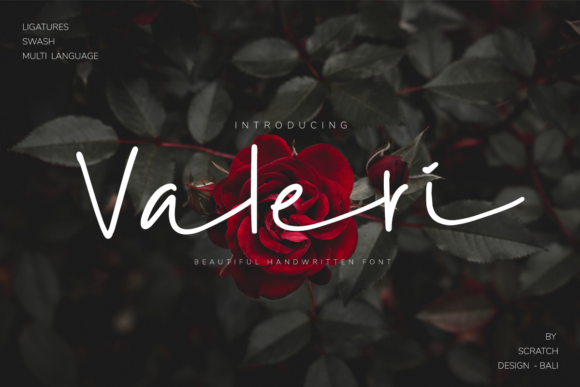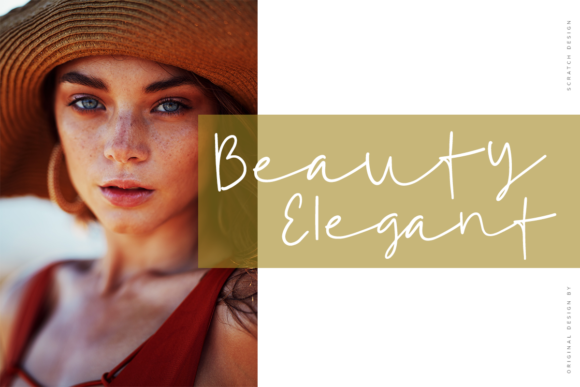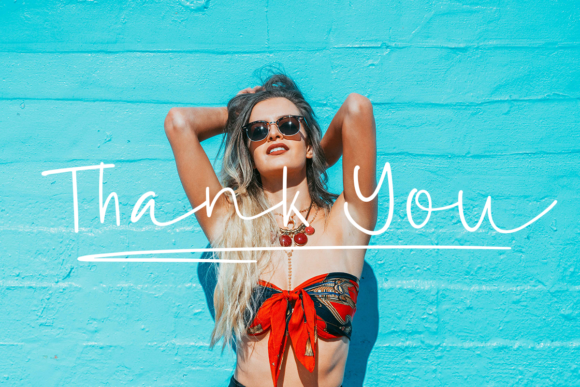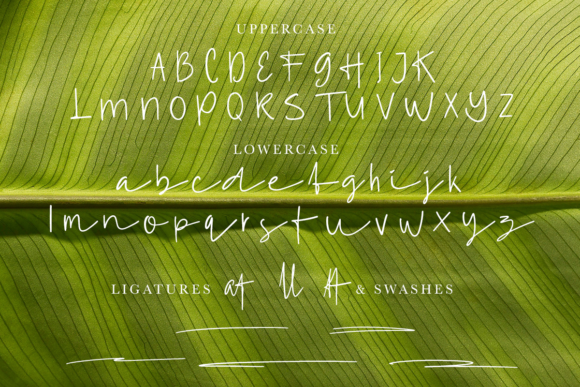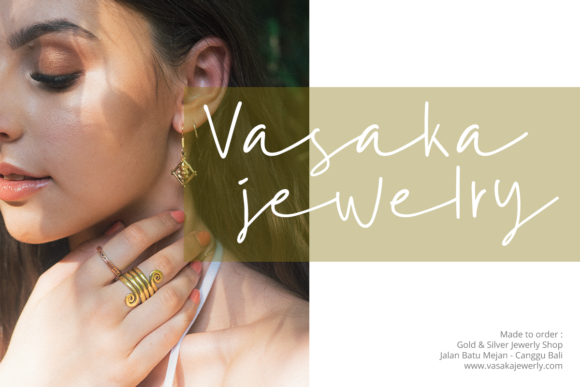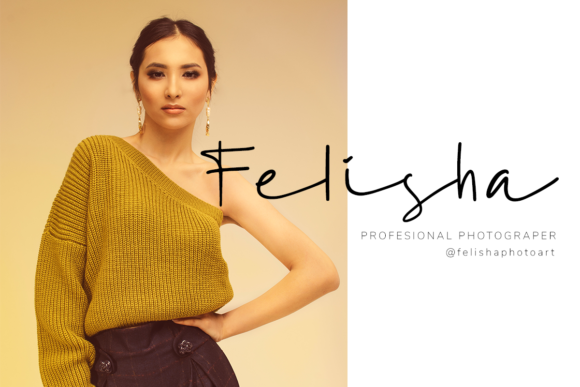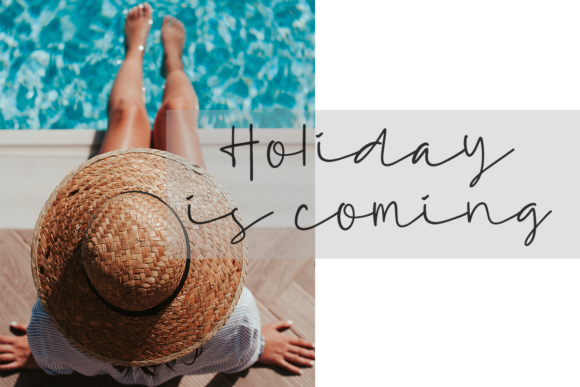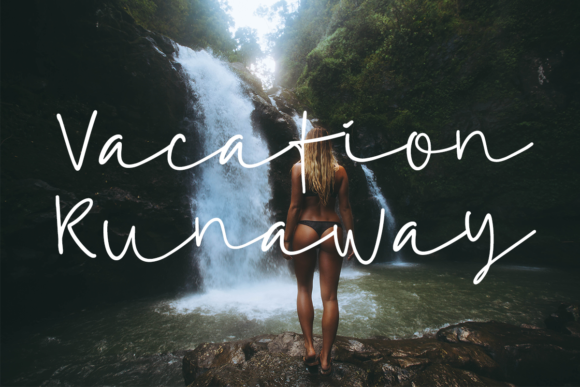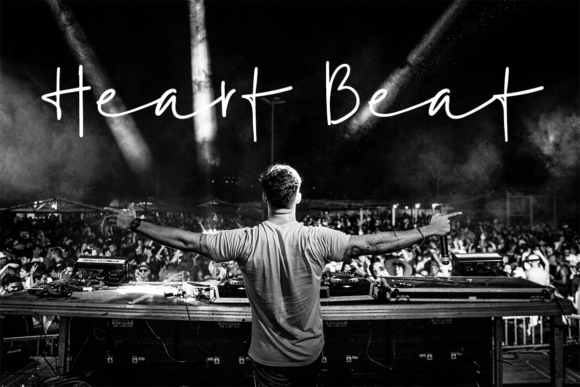
Valeri Font
About Valeri Font
Valeri is a simply stunning script font, perfect for adding a sweet feel to any design idea. Get inspired by its modern simplicity.